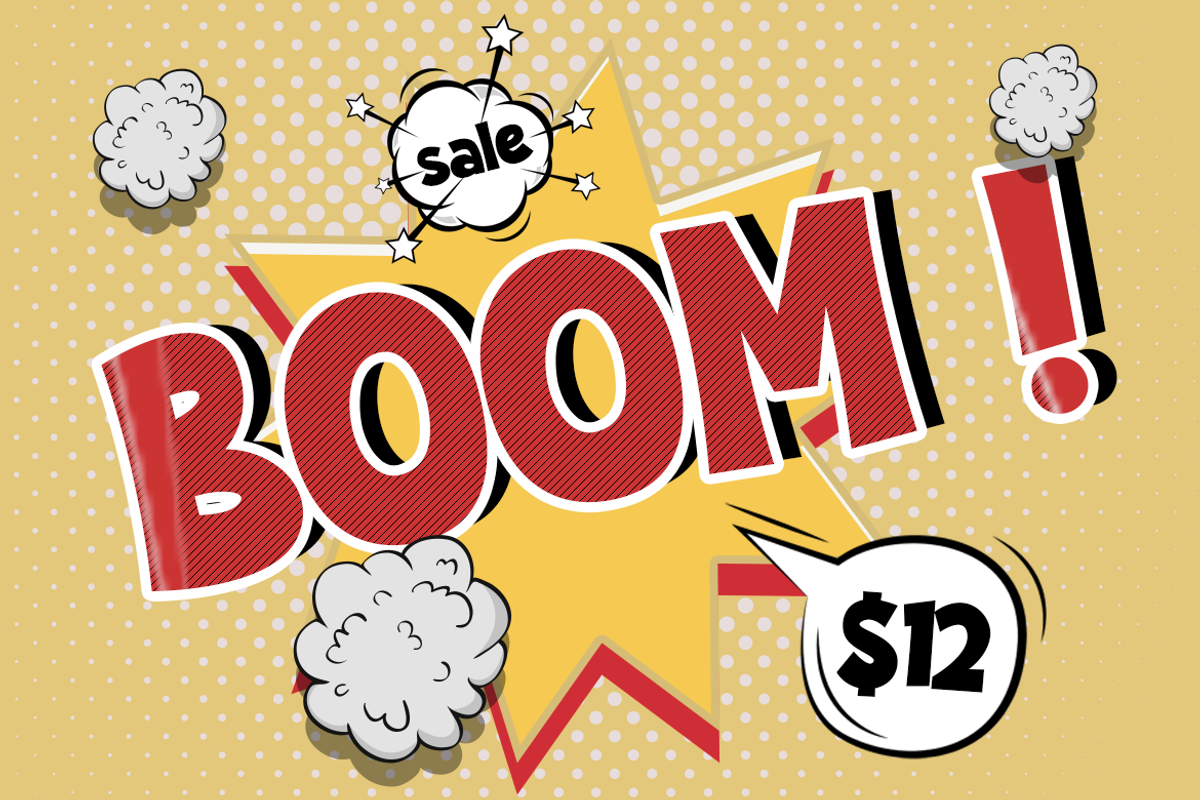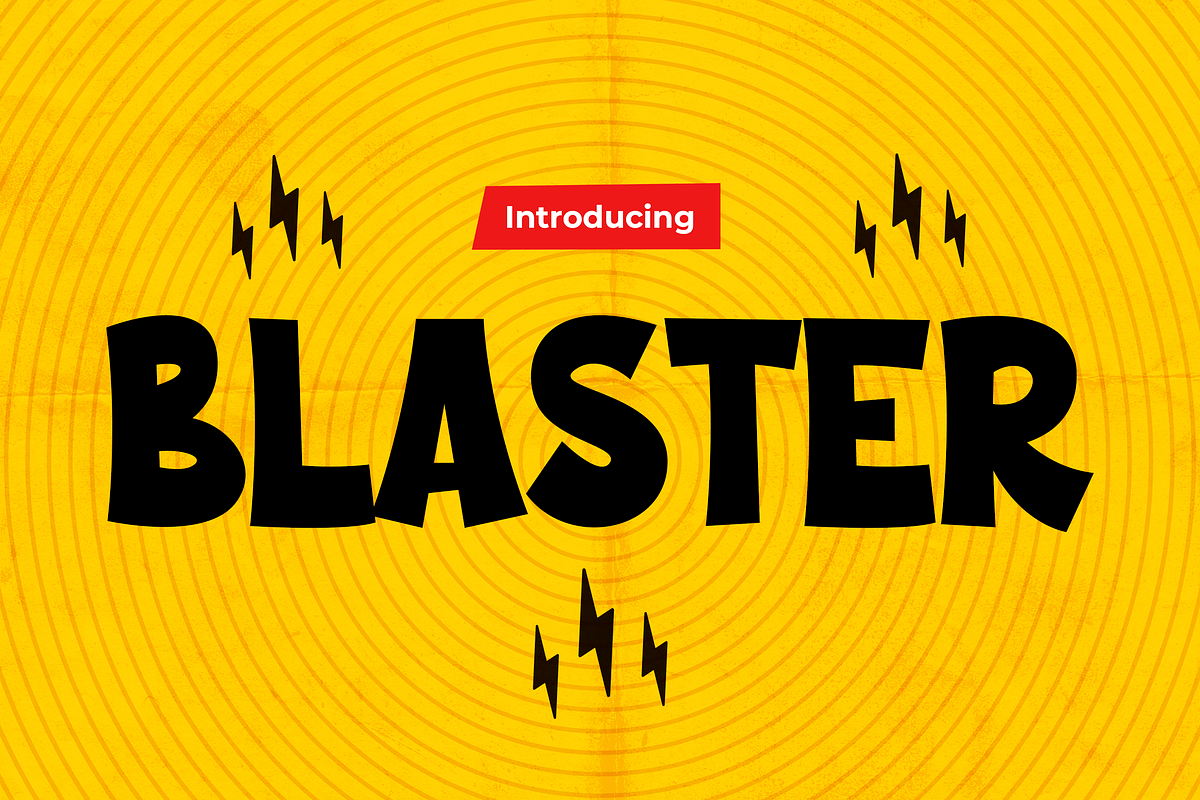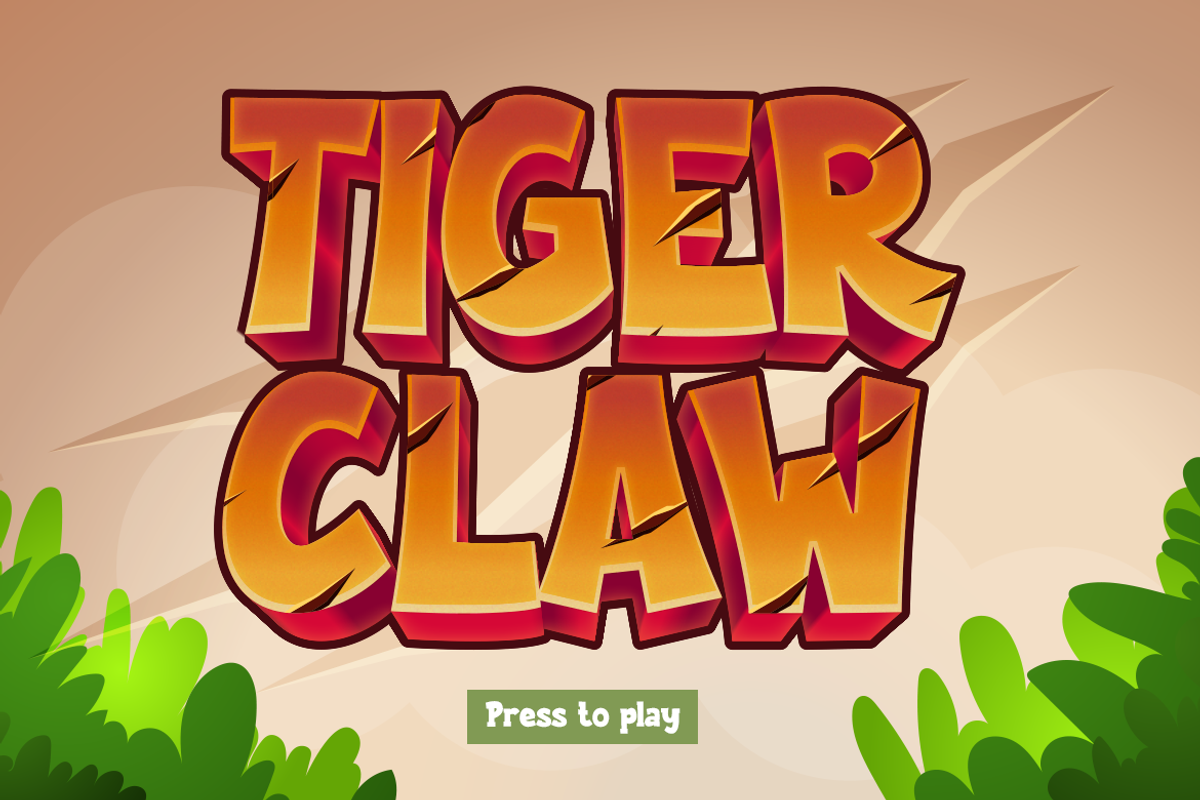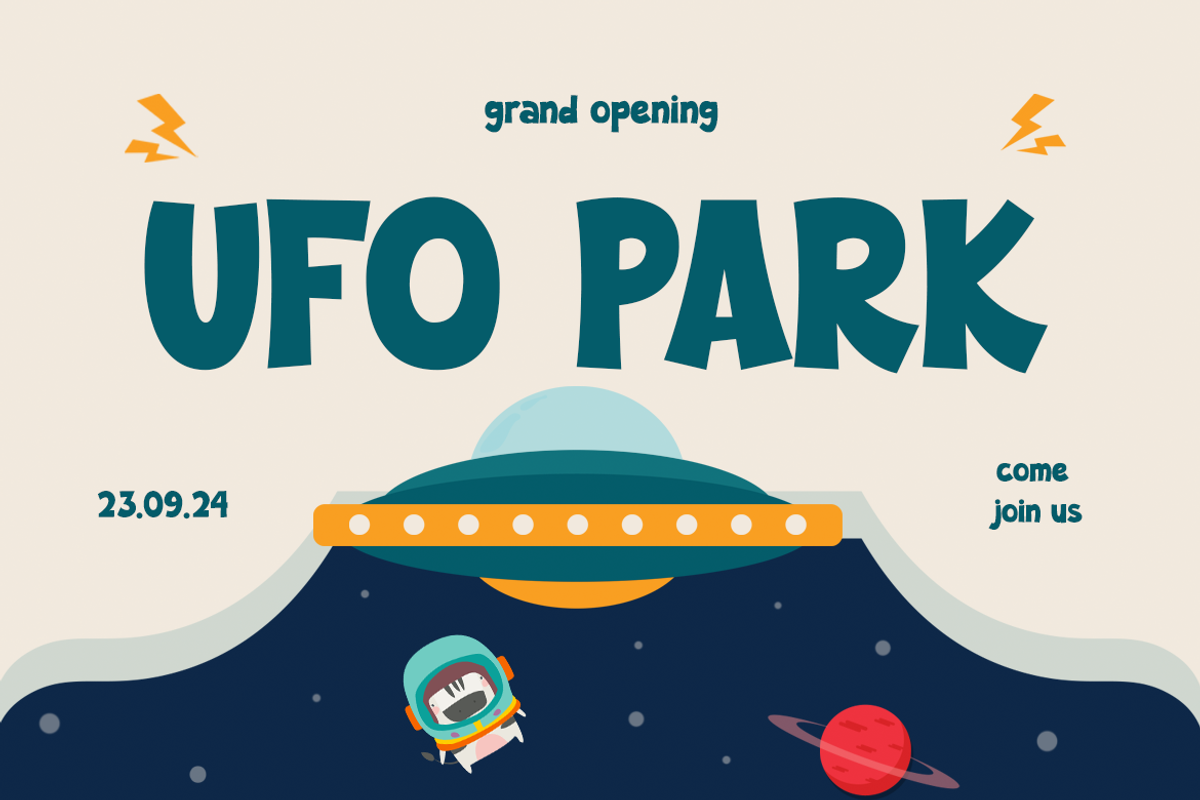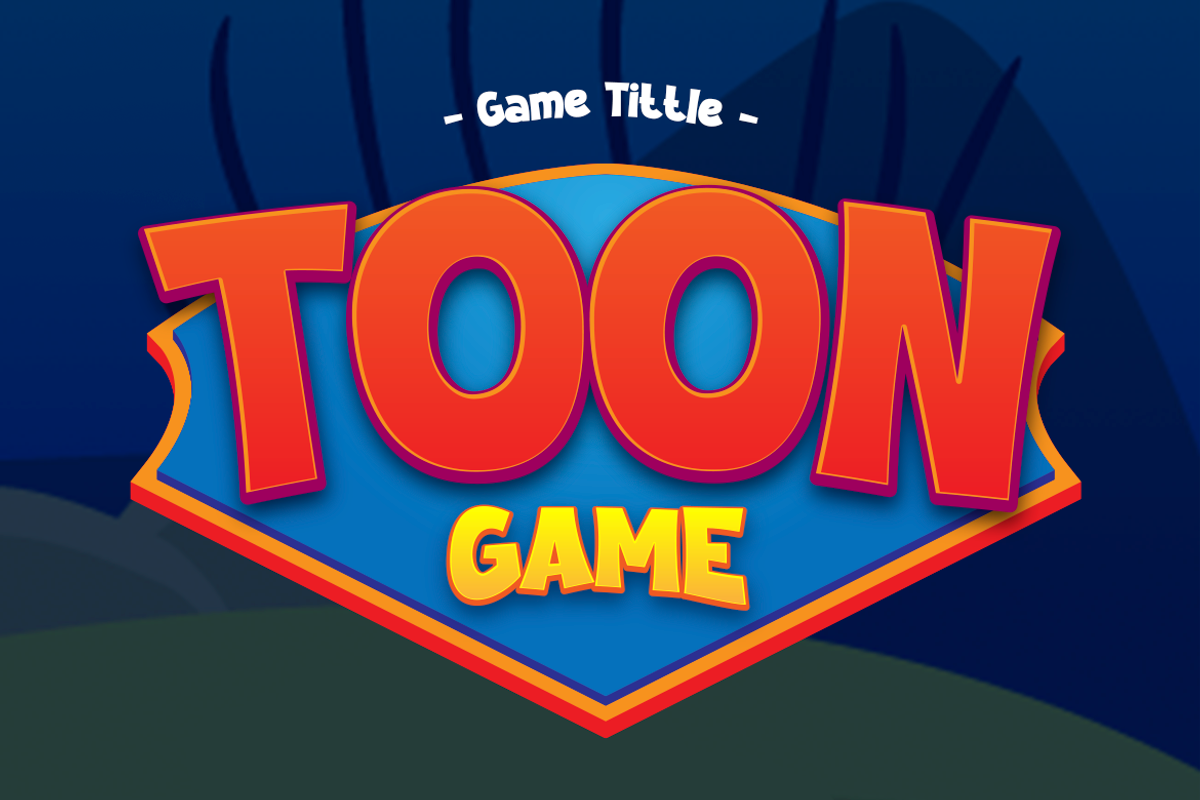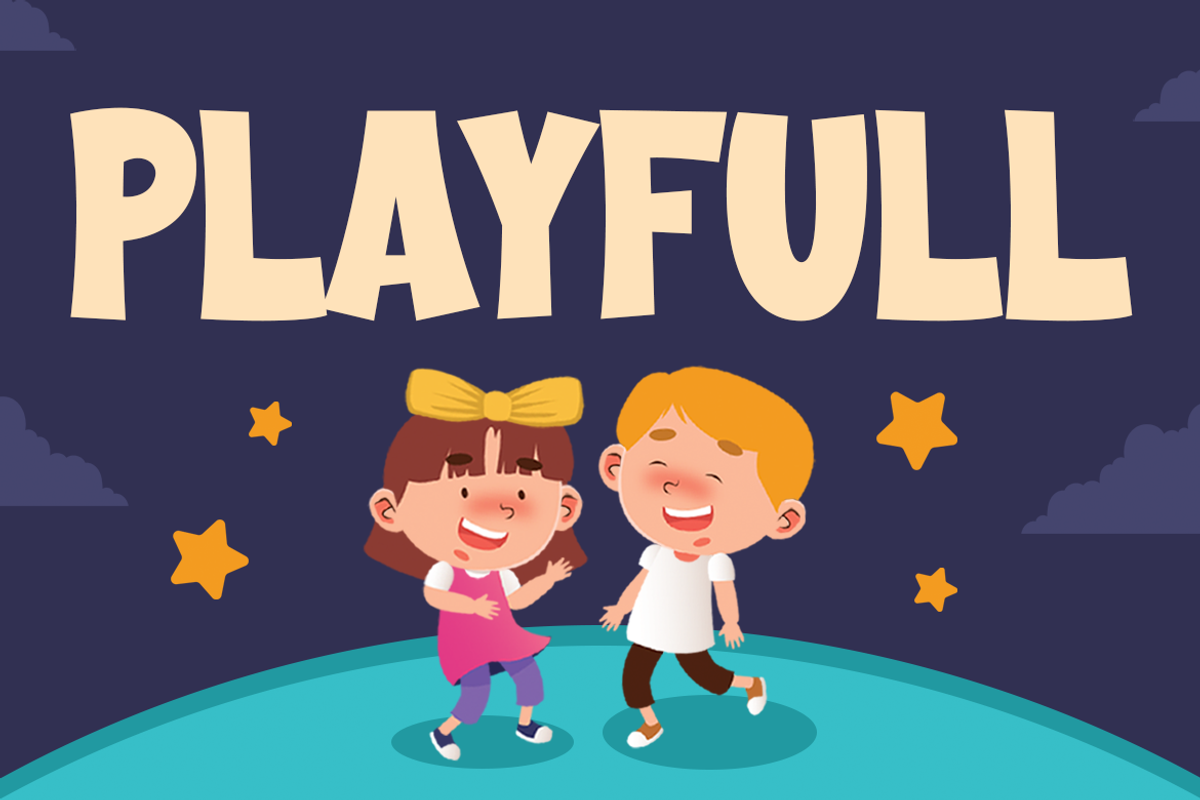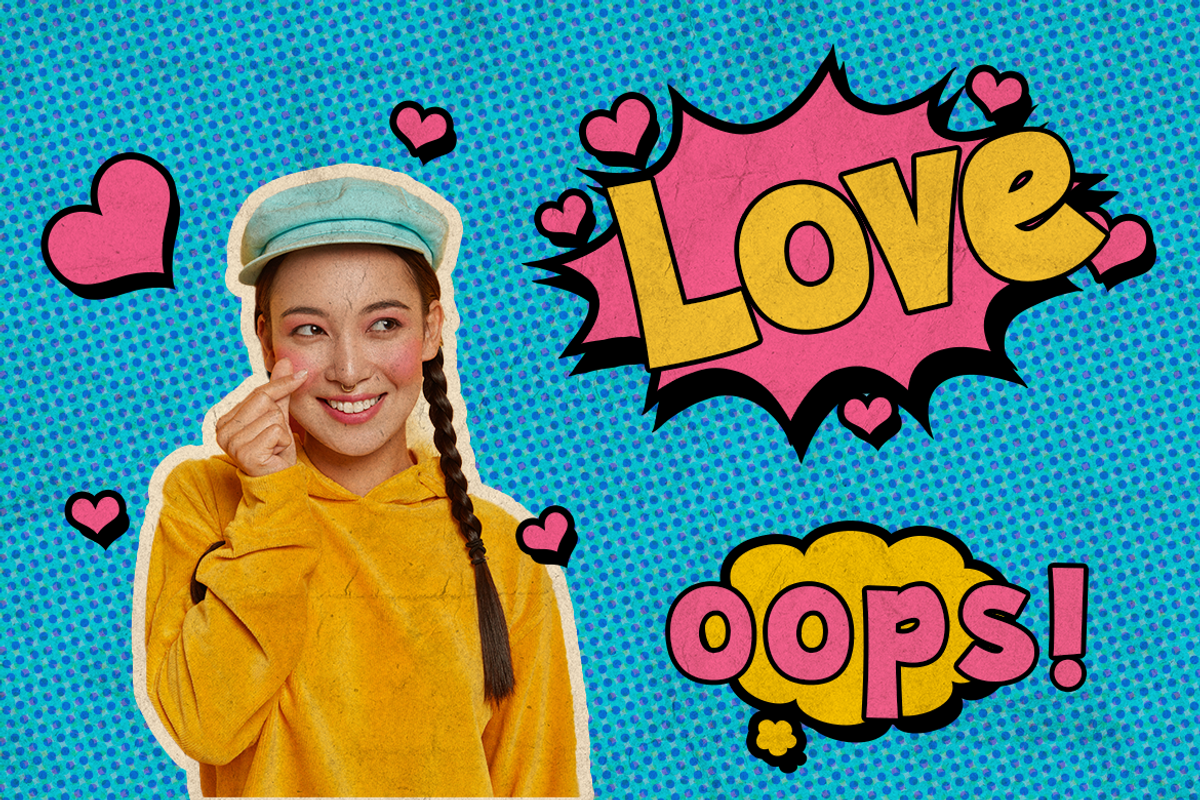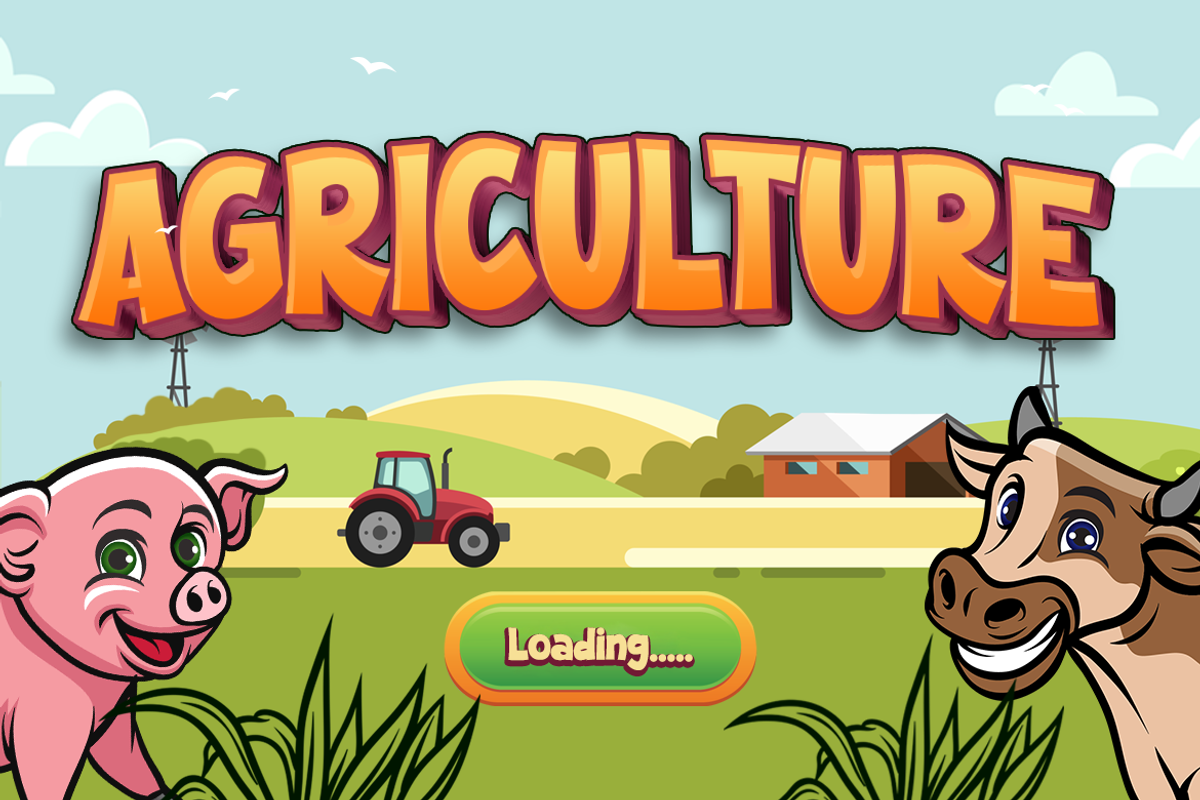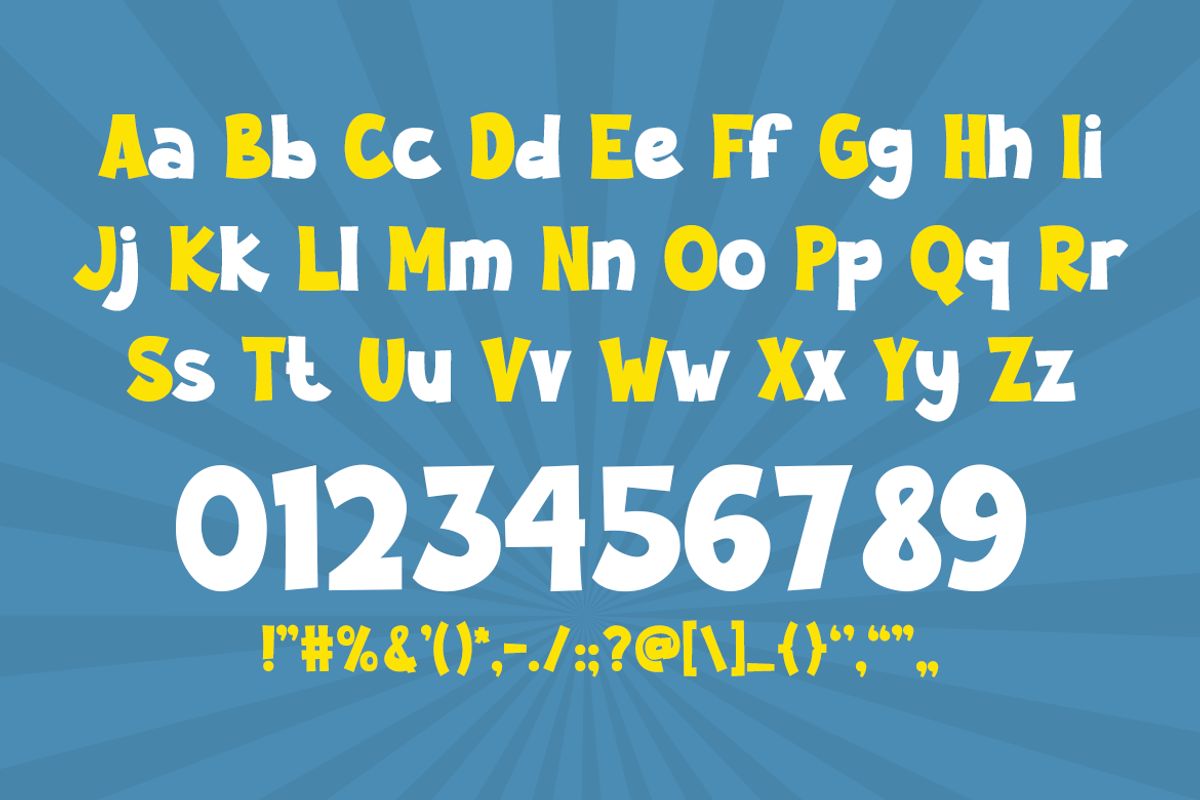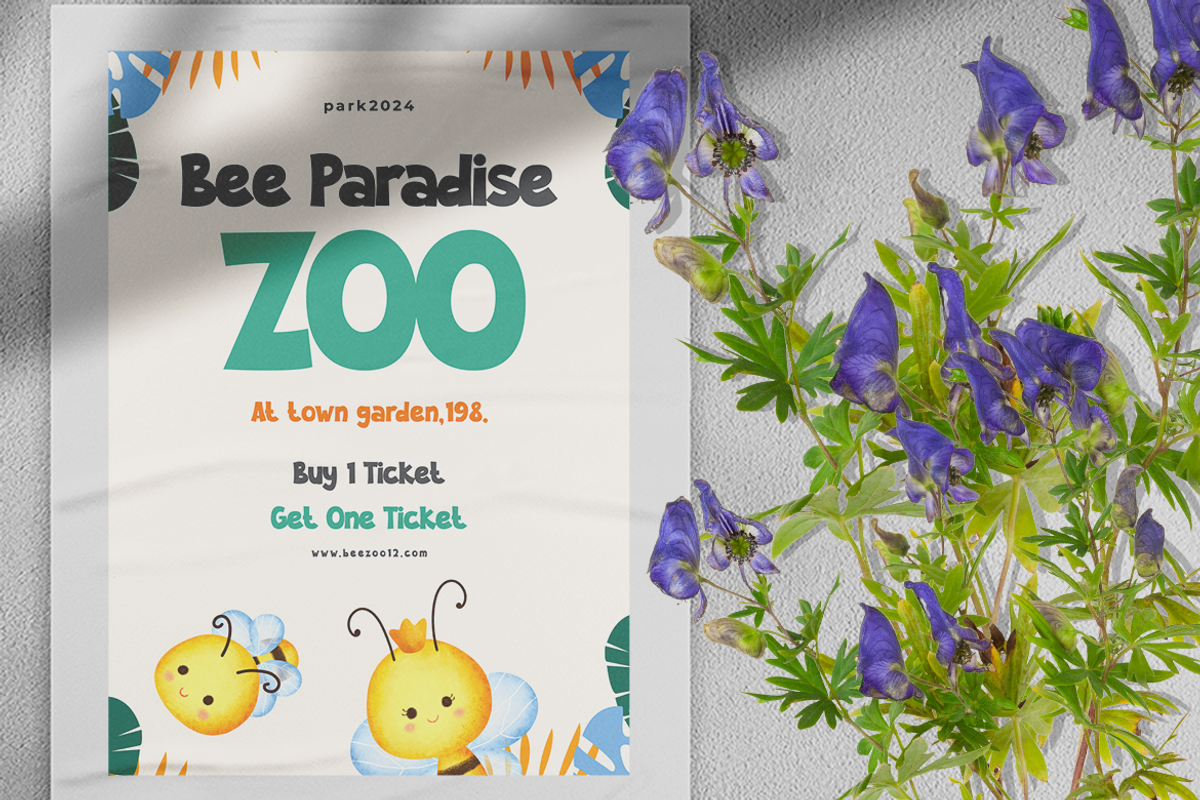
BLASTER
Blaster – A Playful Typeface for Cheerful Kids, Cartoons, and Games
“Blaster” a font that radiates vibrant energy, crafted specifically for the dynamic world of cheerful kids, cartoons, and games. With its bold and joyful design, Blaster injects a surge of excitement into every project adorned with it. Each letter is meticulously designed to explore adventures and sensations, making it the perfect choice for those aiming to ignite the imagination of young audiences.
Whether you’re designing game interfaces, creating animated characters, or developing educational materials, Blaster delivers a powerful punch to your visuals, elevating them to new levels of fun and excitement. Its enthusiastic personality and flexibility make it an indispensable tool for any creative endeavor seeking to captivate the hearts and minds of children and bring their wild fantasies to life. Let Blaster be your font of choice to trigger joy and unleash boundless creativity within the captivating world of kids’ entertainment and beyond.